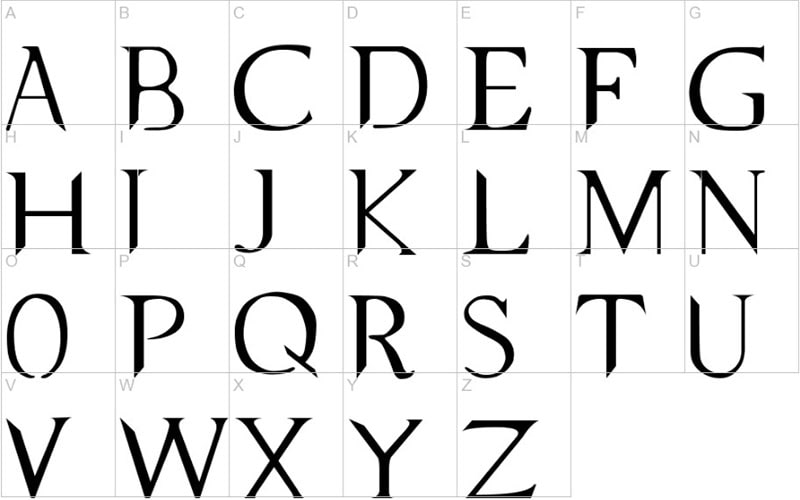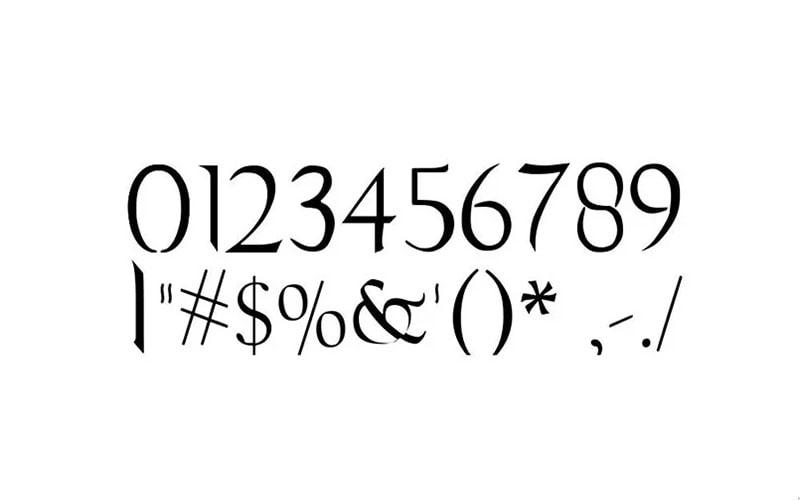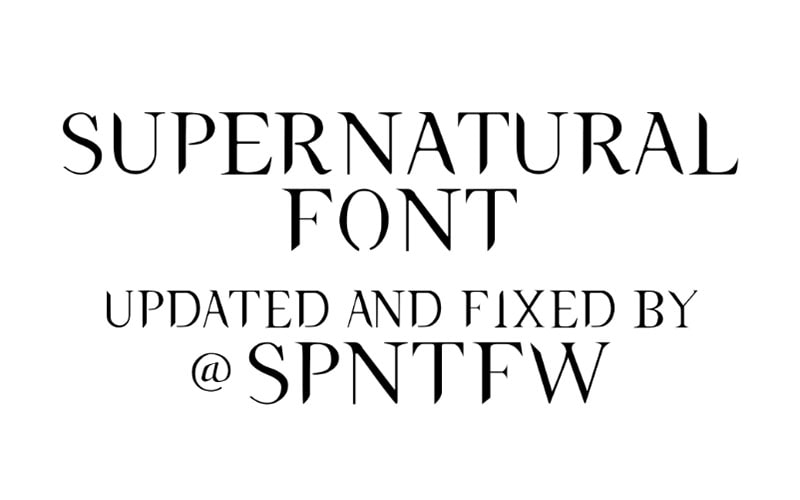
The Supernatural Font is inspired by the title logo of the popular TV series “Supernatural.” This typeface captures the dark, eerie, and mysterious essence of the show.
Making it an excellent choice for designs that seek to evoke a sense of the supernatural and the unknown. Matthew Walters is known as the primary designer.
It comes in a single, stylized font style. It features sharp, jagged edges and a somewhat distressed appearance, giving it a haunting and otherworldly feel that aligns with the themes of the Supernatural TV series.
The character design often emphasizes the eerie and mystical nature of the font, suitable for conveying a sense of mystery. Let’s take a review of its texture.
The Supernatural Font is ideal for a variety of design applications, including Horror movie posters, promotional materials, Book covers, titles for mystery and horror genres, Themed party invitations, and decorations.
It primarily supports languages that use the Latin script, making it suitable for English and other Latin-based languages. This allows for versatile use in different linguistic contexts.
While strongly associated with the TV series, the font’s spooky and mysterious style makes it suitable for a wide range of horror and mystery-related projects.